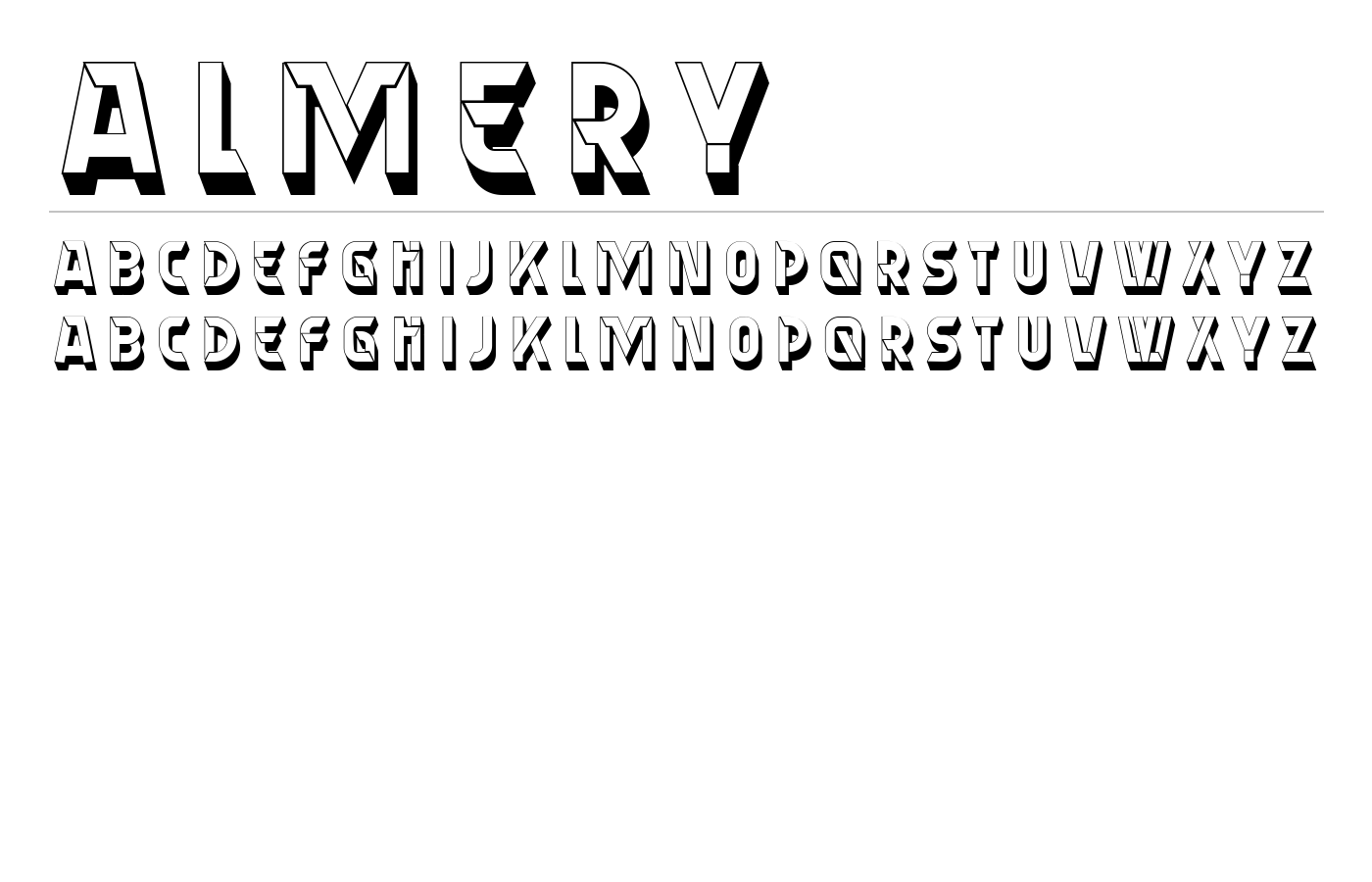
Almery is a bold, all-caps display typeface with a strong, three-dimensional effect that adds depth and visual impact. Its geometric structure and sharp angles give it a modern, dynamic feel, making it perfect for eye-catching headlines, logos, and posters where a striking, adventurous personality is desired. This font works well for brands and projects that want to convey energy, strength, and a sense of bold style.
Almery Font
About Almery Font